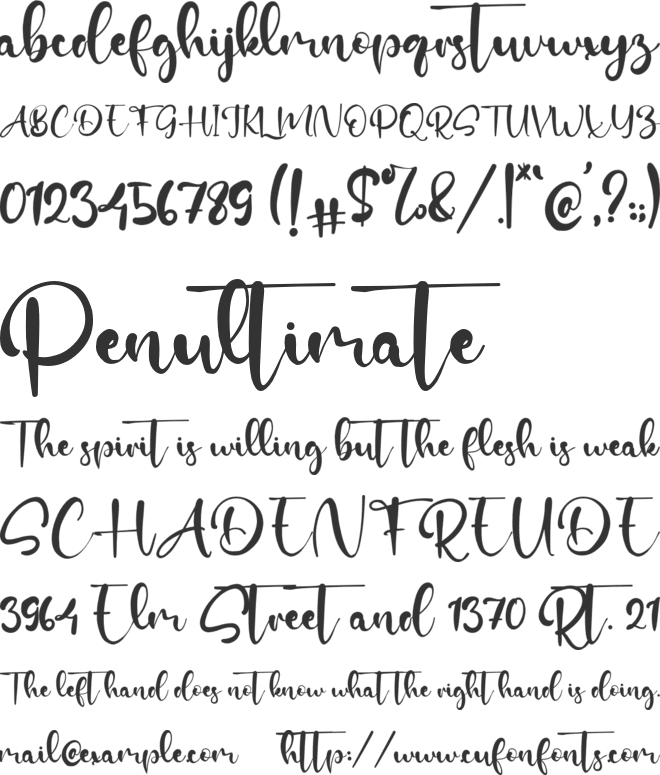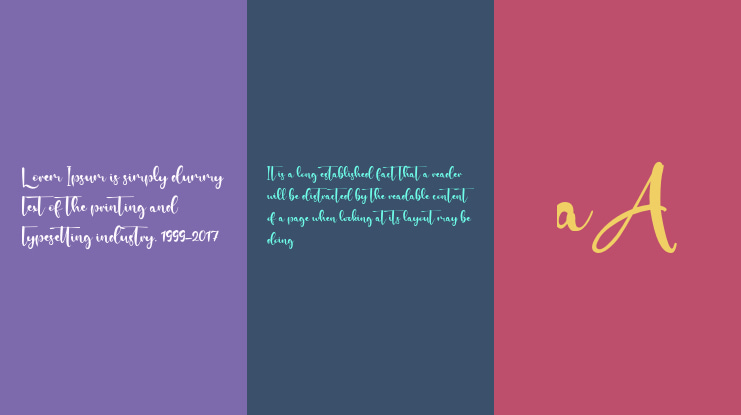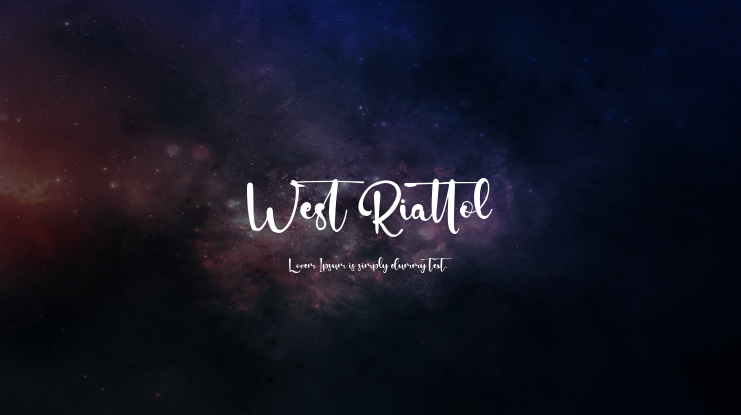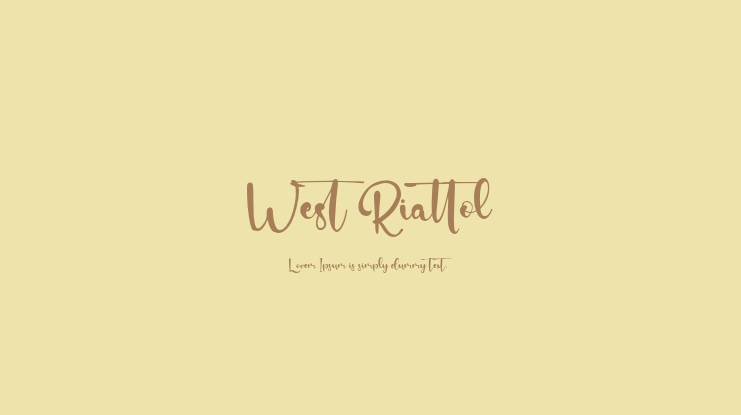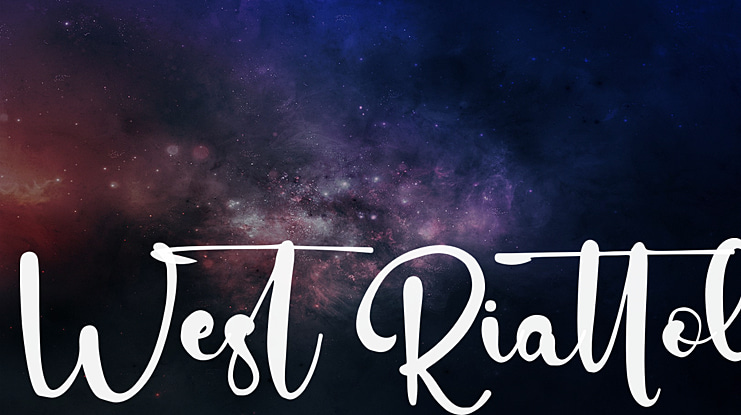
West Riattol Font
West Riattol Modern Script Typeface, A collection of letters and numbers suitable your projects also great for Logotype, Branding Design, Logo Design, Digital Lettering Arts, T-Shirt/Apparel, Poster, Magazine, Signs, Advertising Design, and any design needsClick our website : https://staircaselab.com/product/west-riattol/